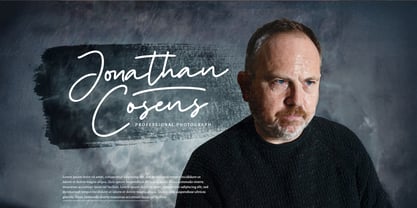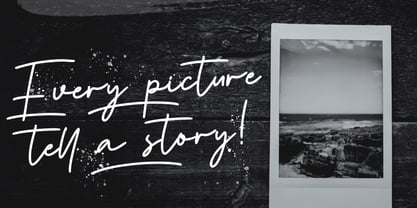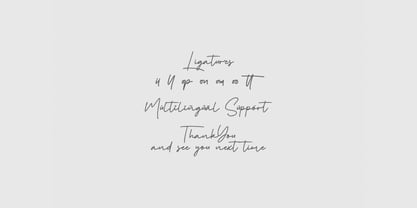
The Tanya Hati Font Family was designed by Virgiawan Listanto and published by Stringlabs Creative Studio. Tanya Hati contains 1 styles. More about this family
Tanya Hati is a graceful signature script font that speaks with emotion and elegance. With its flowing strokes and handwritten charm, this font captures the beauty of heartfelt expression perfect for adding a personal and romantic touch to your designs.
Tanya Hati